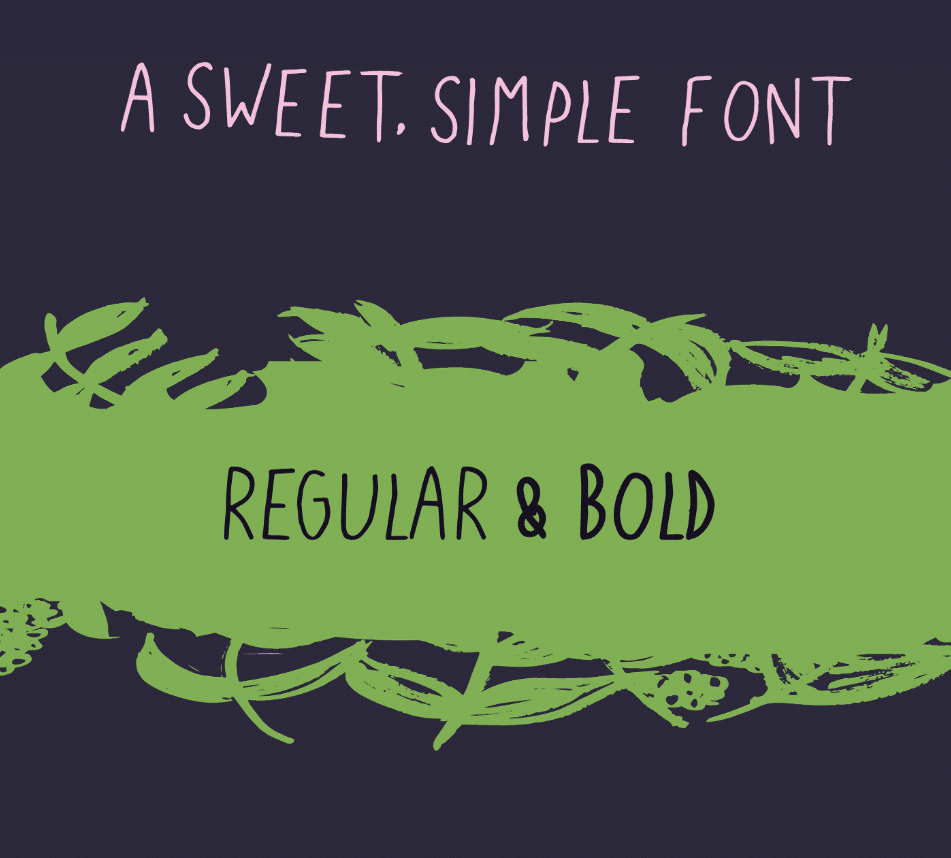
Blackberries A Sweet Font
A sweet, simple typeface. Blackberries is based on handwriting and has been originally hand lettered. Both weights are free to download for personal use.